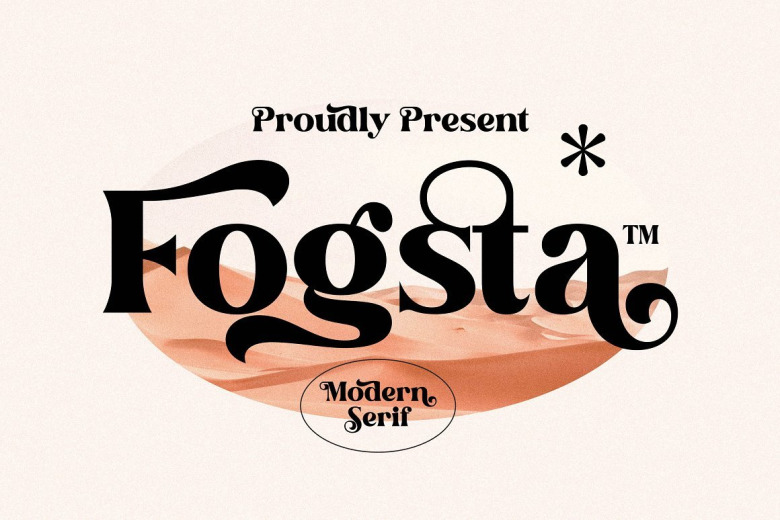
Fogsta Font
Fogsta is a bold vintage style serif font full of hedonism and joie de vivre. Fogsta has strong character and extremely smooth features and self-confidence that springs from within. This typeface is perfect for an elegant & luxury logo, book or movie title design, fashion brand, magazine, clothes, lettering, quotes, and so much more.